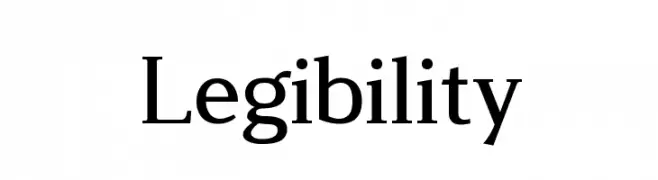
A bold, classic serif font with strong strokes and elegant serifs.
A decorative, ancient script-inspired font with sharp, angular lines and geometric shapes.
A classic serif font with elegant strokes and balanced readability.
A bold, futuristic font with geometric shapes and sharp angles.
A modern, geometric font with bold, squared-off characters.
A classic serif font with strong readability and elegant design.
A classic serif font with semi-bold weight, offering elegance and readability.